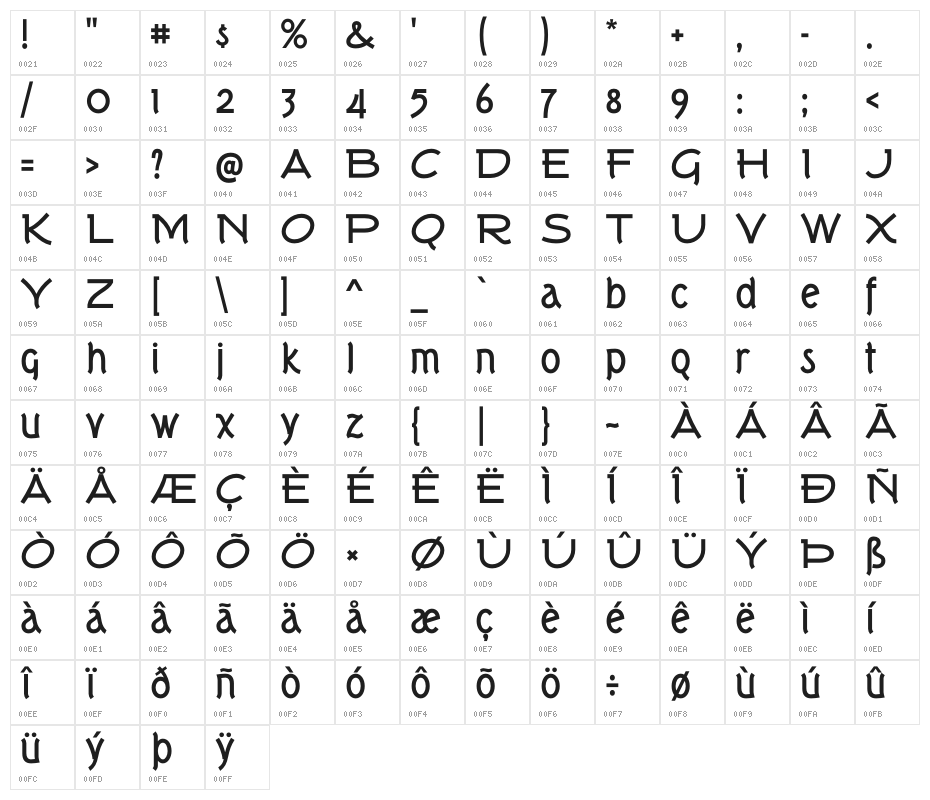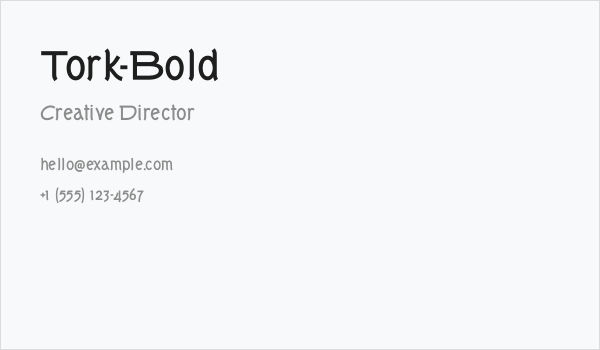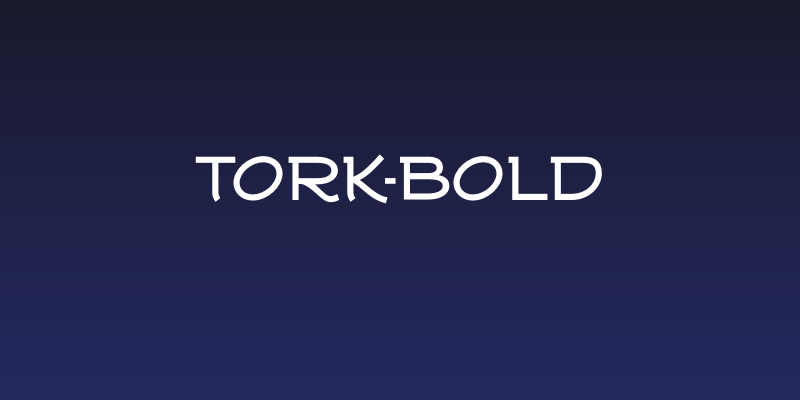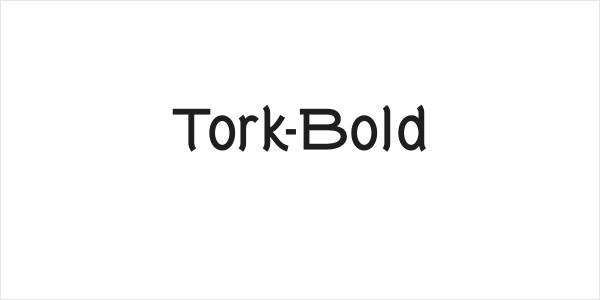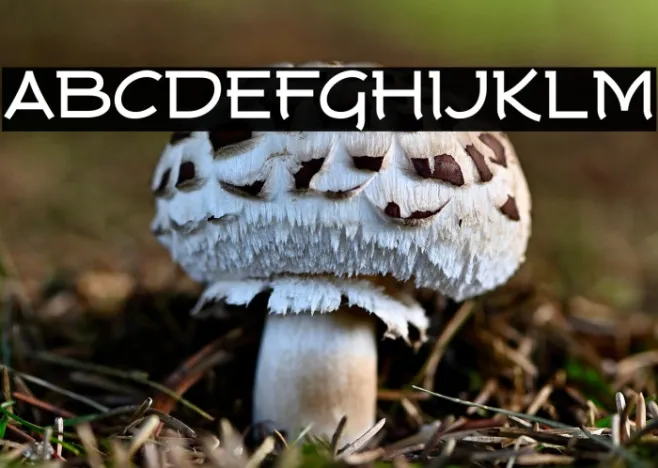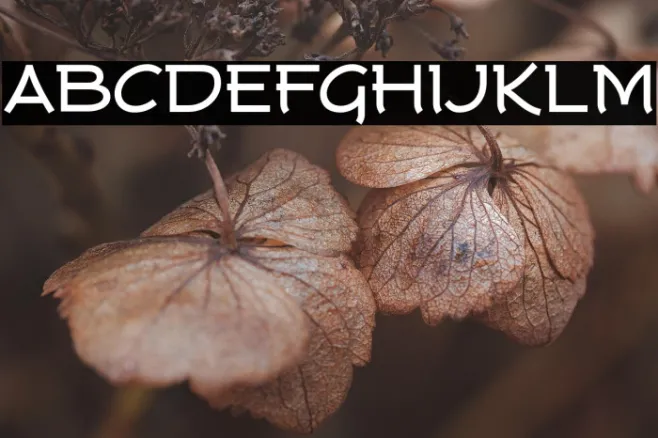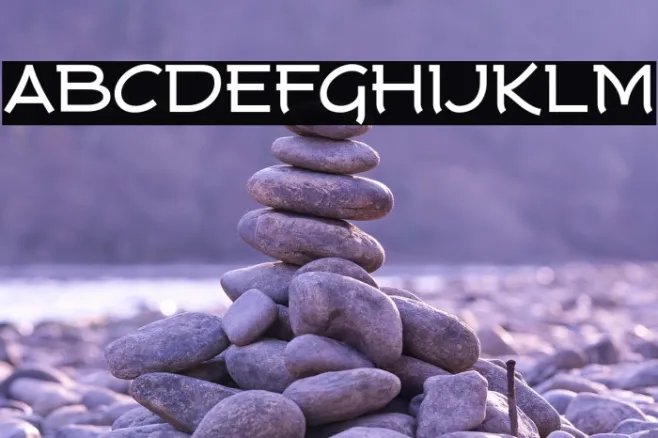
Tork-Bold Font
Tork-Bold Description
This font features a bold and dynamic style with a unique geometric flair. The uppercase letters exhibit sharp angles and distinct cuts, giving them a modern and edgy appearance. The lowercase letters maintain a consistent boldness, with rounded edges that contrast the angular uppercase. Numbers are clear and bold, ensuring readability. Special characters are designed to match the overall aesthetic, with a mix of angular and rounded elements. This font stands out with its strong presence and is suitable for making a statement.
| Proposed Projects | Ideal for branding, headlines, posters, and any project requiring a strong visual impact. |